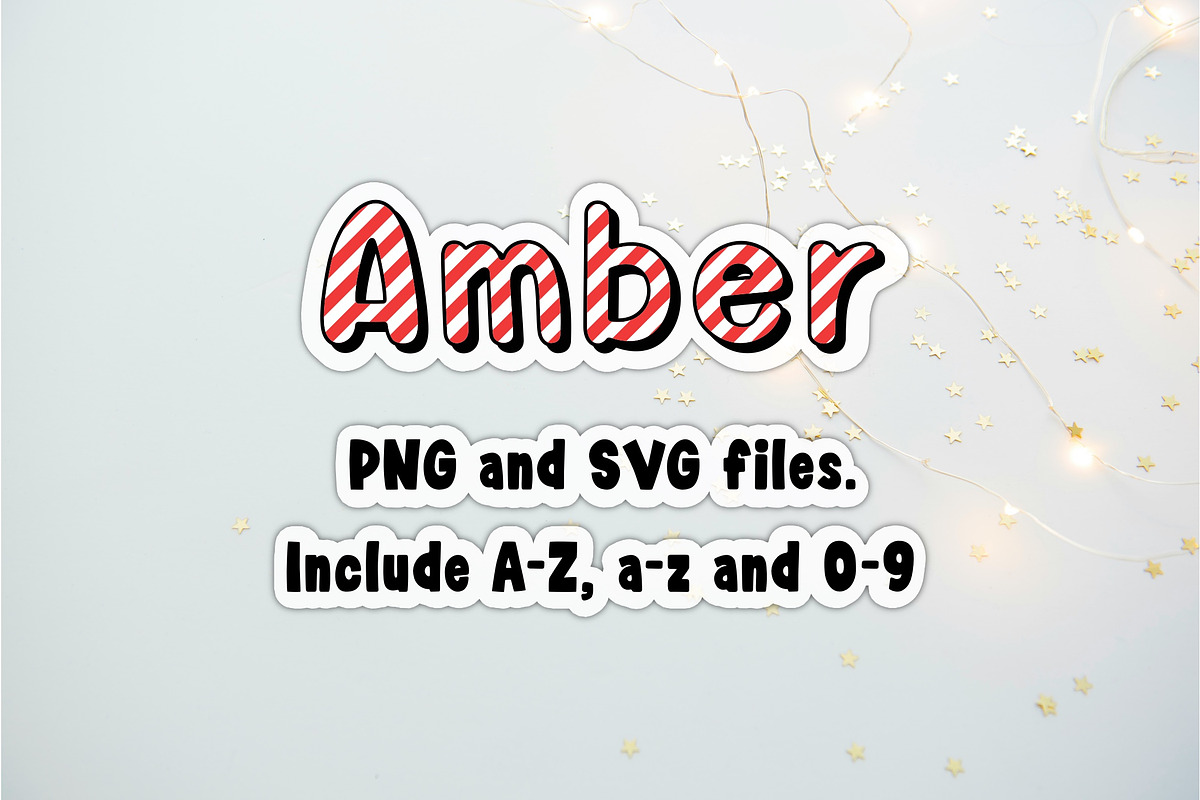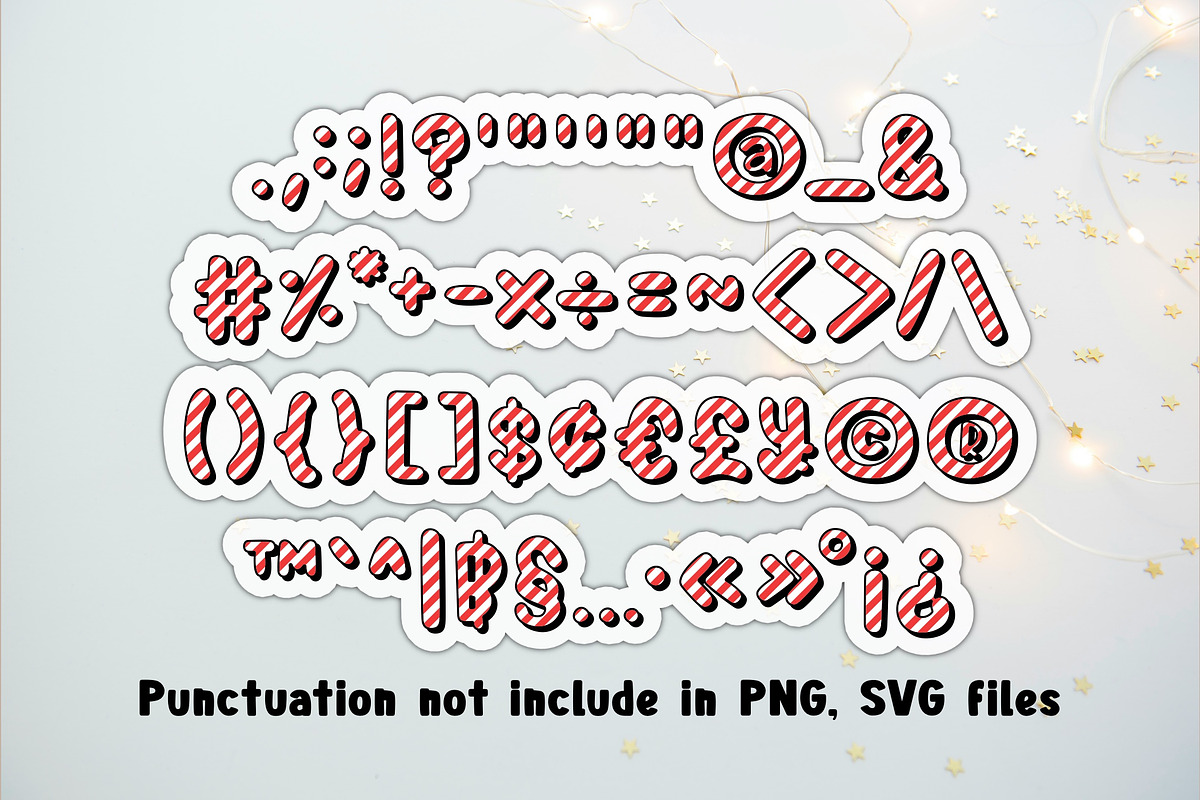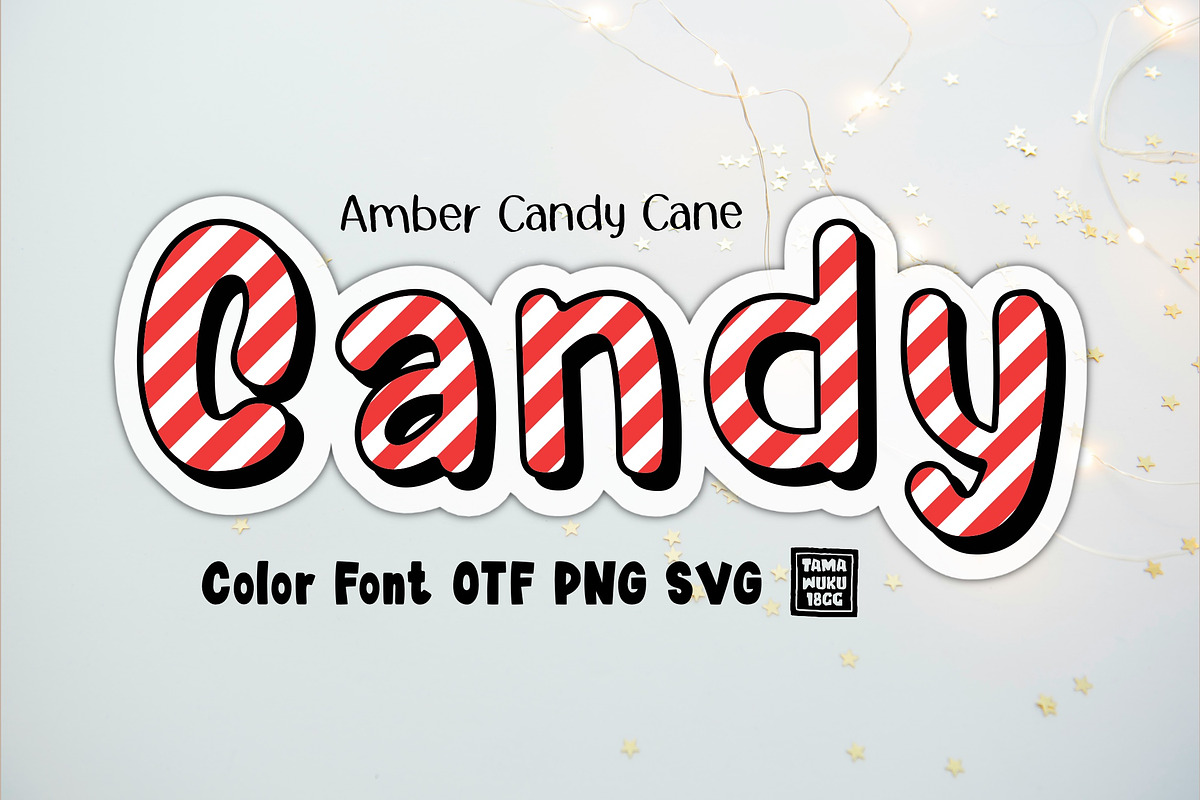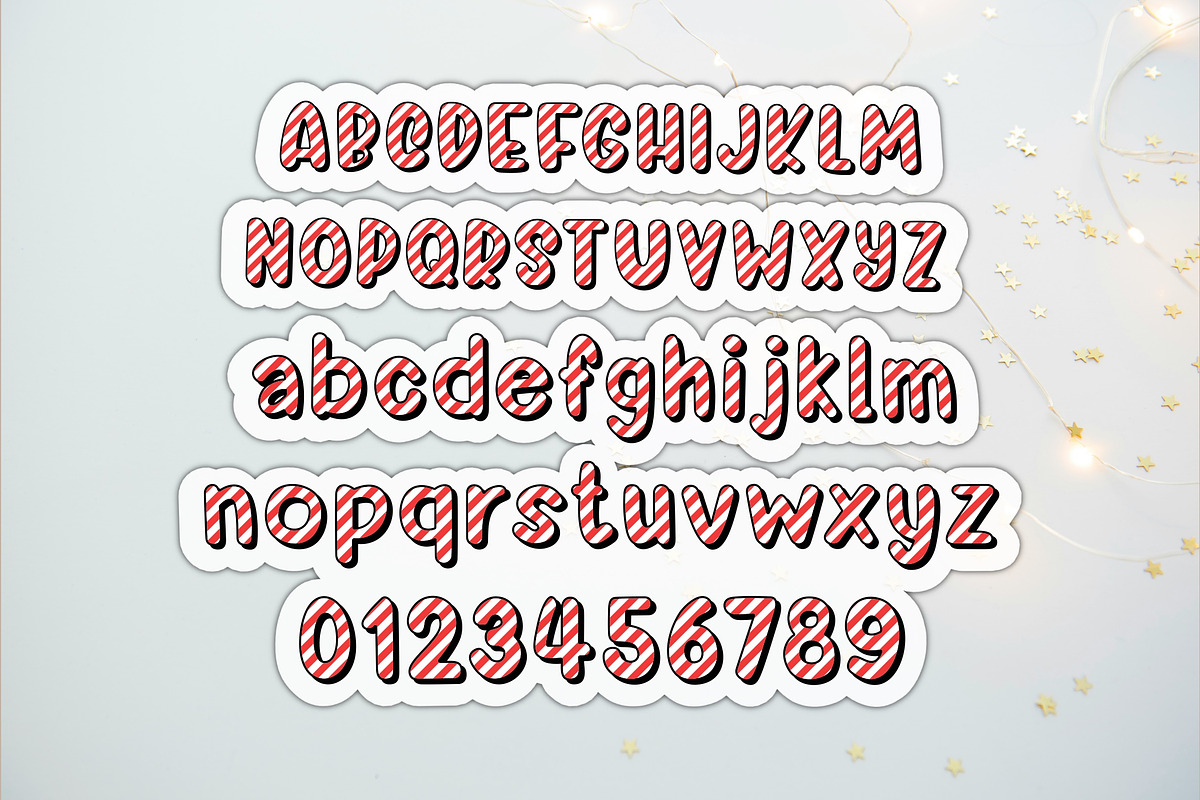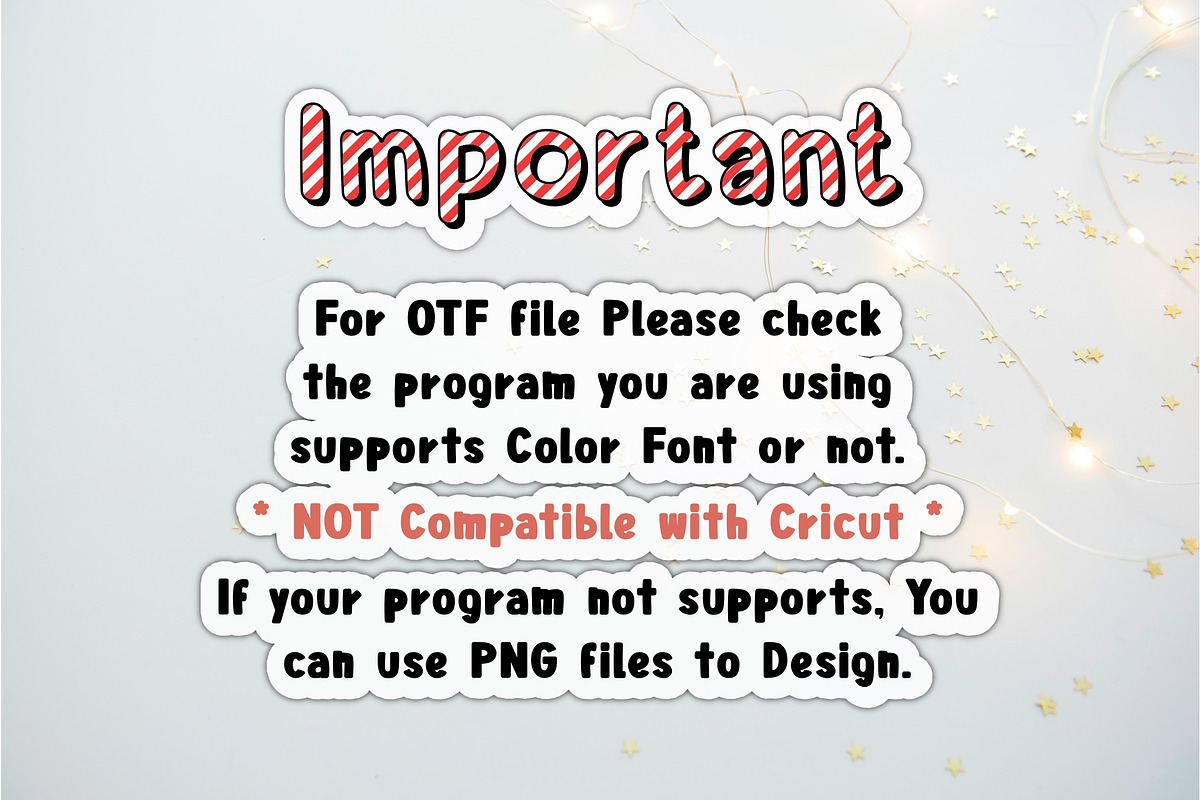
Amber Candy Cane has Red and White in Christmas Theme with Shadow. This font is the perfect fit for all of your t-shirt, social media, crafty DIY projects, and much more!